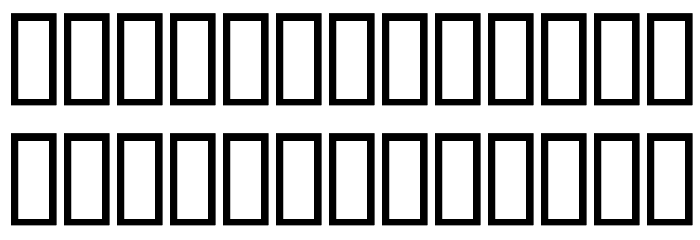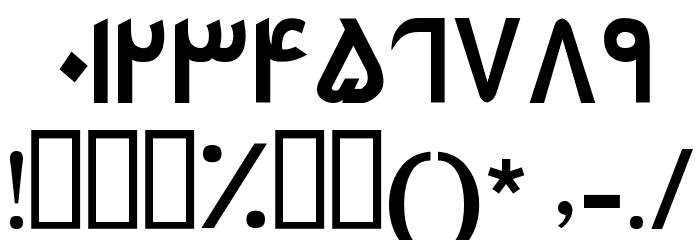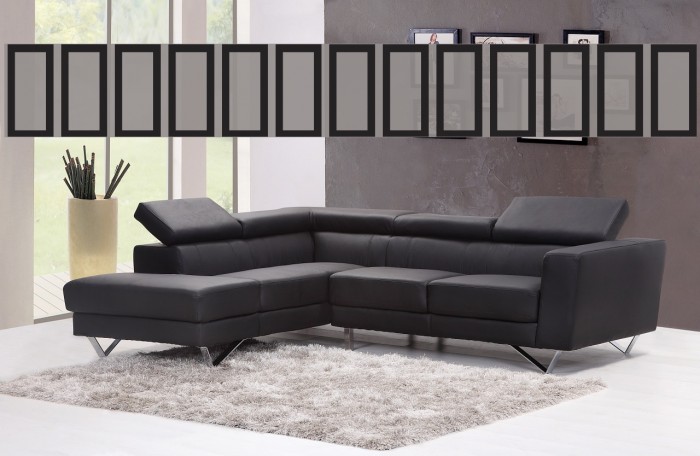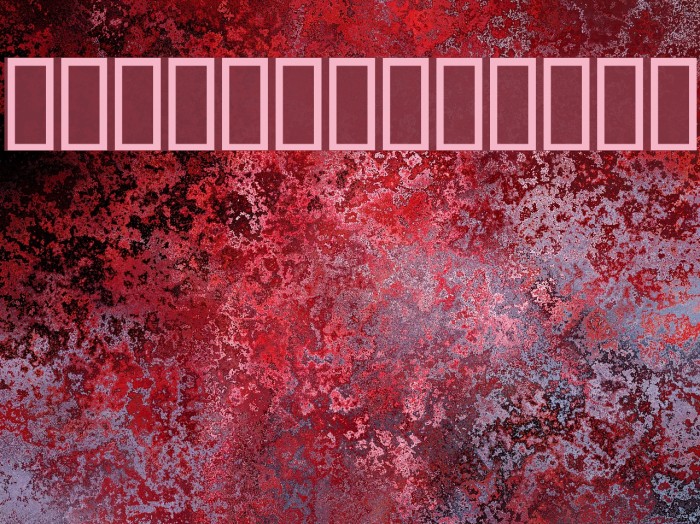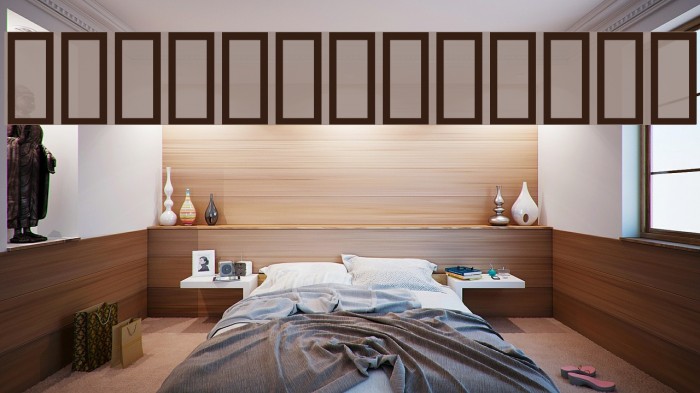
Heritage I Font
This font features a unique blend of geometric and abstract elements, creating a striking visual impact. The characters are bold and angular, with a futuristic aesthetic that is both eye-catching and modern. The numbers and special characters maintain the same boldness, ensuring consistency across all elements. The overall design is highly stylized, making it suitable for projects that require a strong visual presence. The font's distinct style makes it ideal for creative and artistic applications, where a bold statement is desired.
A bold, geometric font with a futuristic and abstract design.